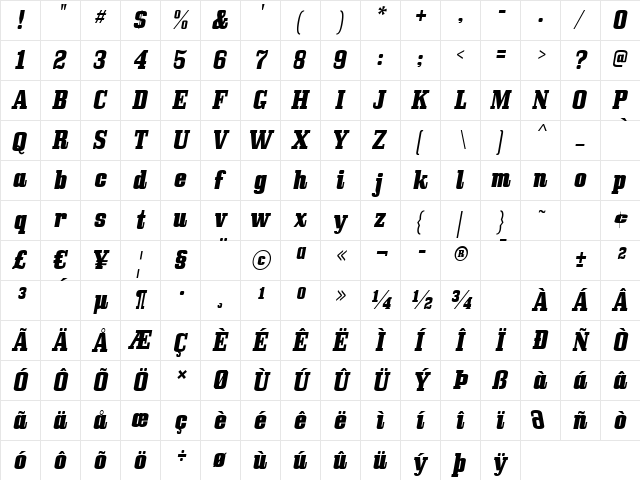
Bullpen Italic Font Preview
Bullpen Italic
Bullpen Italic Font Details
Design Context for Bullpen Typeface
Bullpen takes a measured approach to typography — its balanced proportions and neutral character make it a reliable workhorse for both digital and print work. Its italic angle brings a sense of urgency and motion to the letterforms.
Pro Tip: Use Bullpen for emphasis, pull quotes, and subheadings where its slanted energy can add rhythm to the layout.